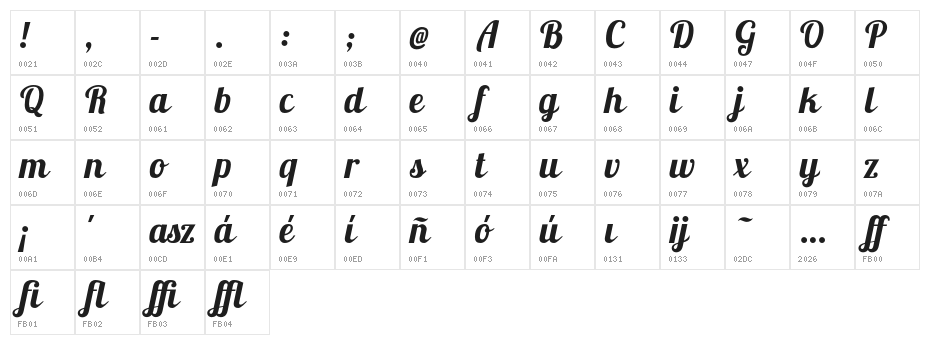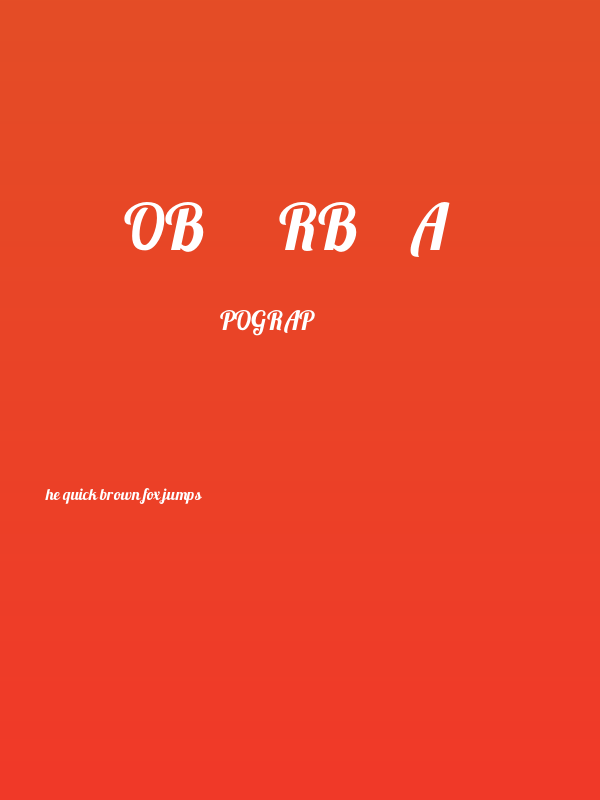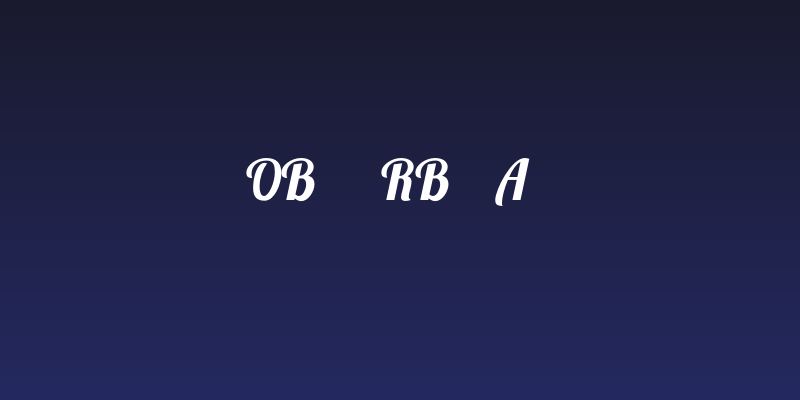
Lobsterbeta13 Font
Lobsterbeta13 Description
This font features a bold, flowing script style with a modern twist. The uppercase letters are elegantly curved, with a distinct flair that adds a sense of movement and sophistication. The lowercase letters maintain a consistent style, with smooth connections between characters, creating a cohesive and fluid appearance. The numbers and special characters are designed to match the overall aesthetic, ensuring a harmonious look across all text elements. This font is ideal for projects that require a touch of elegance and modernity.